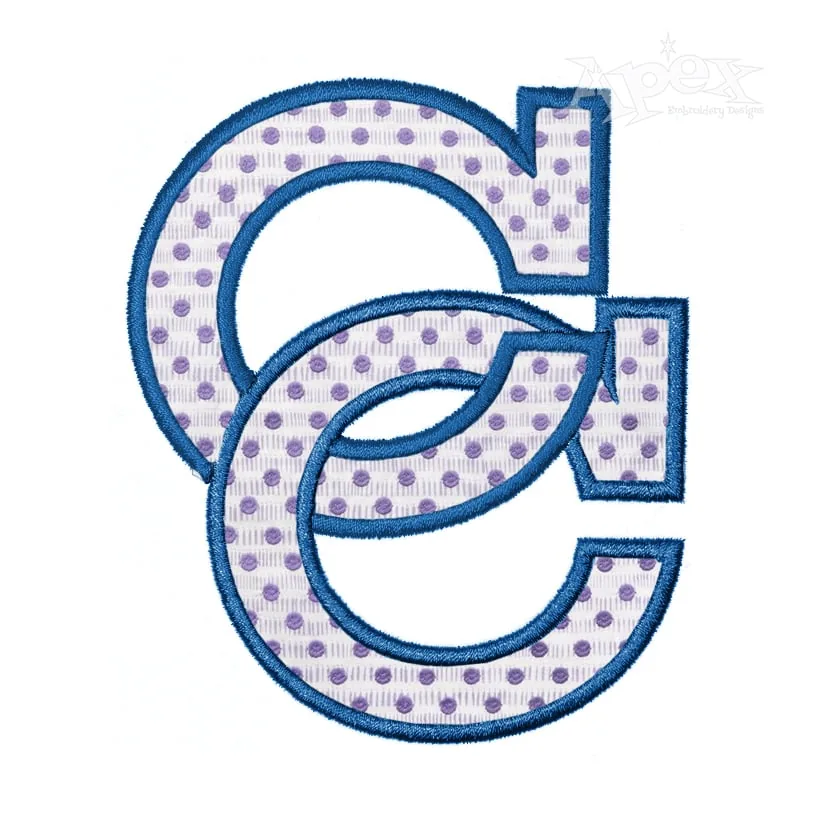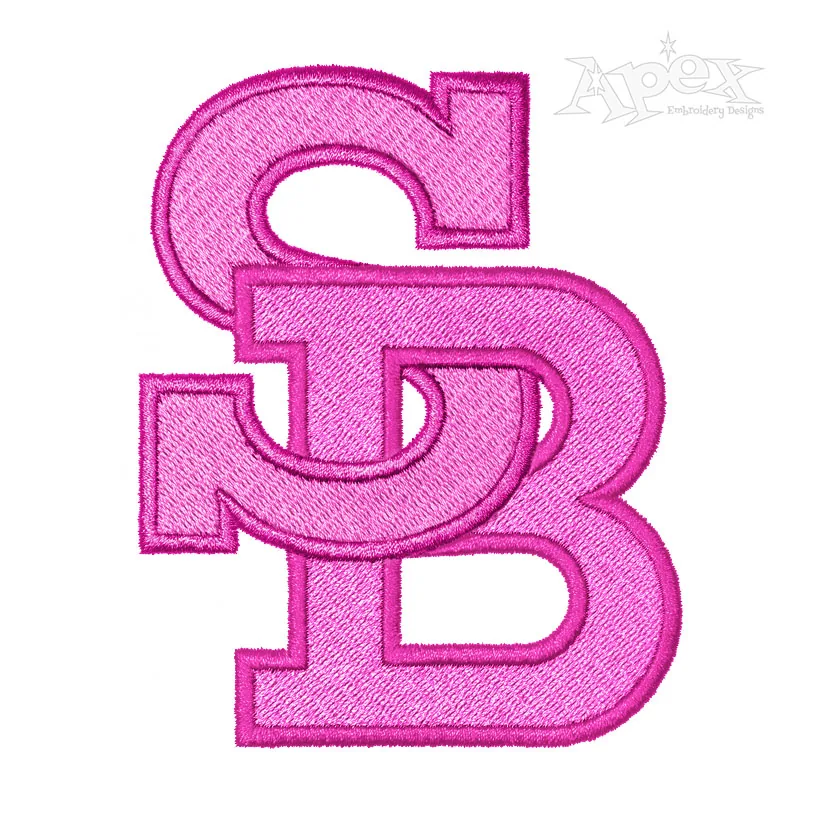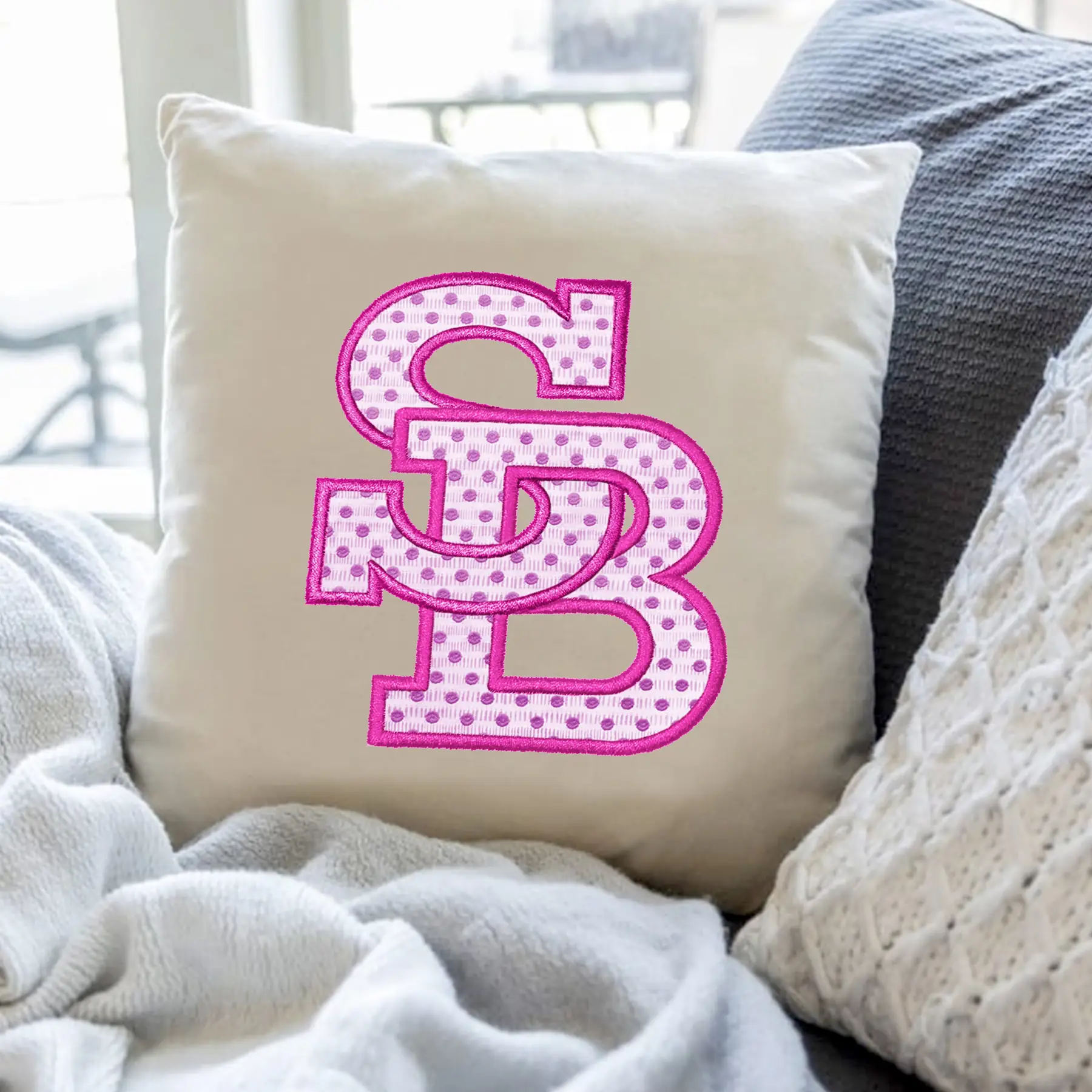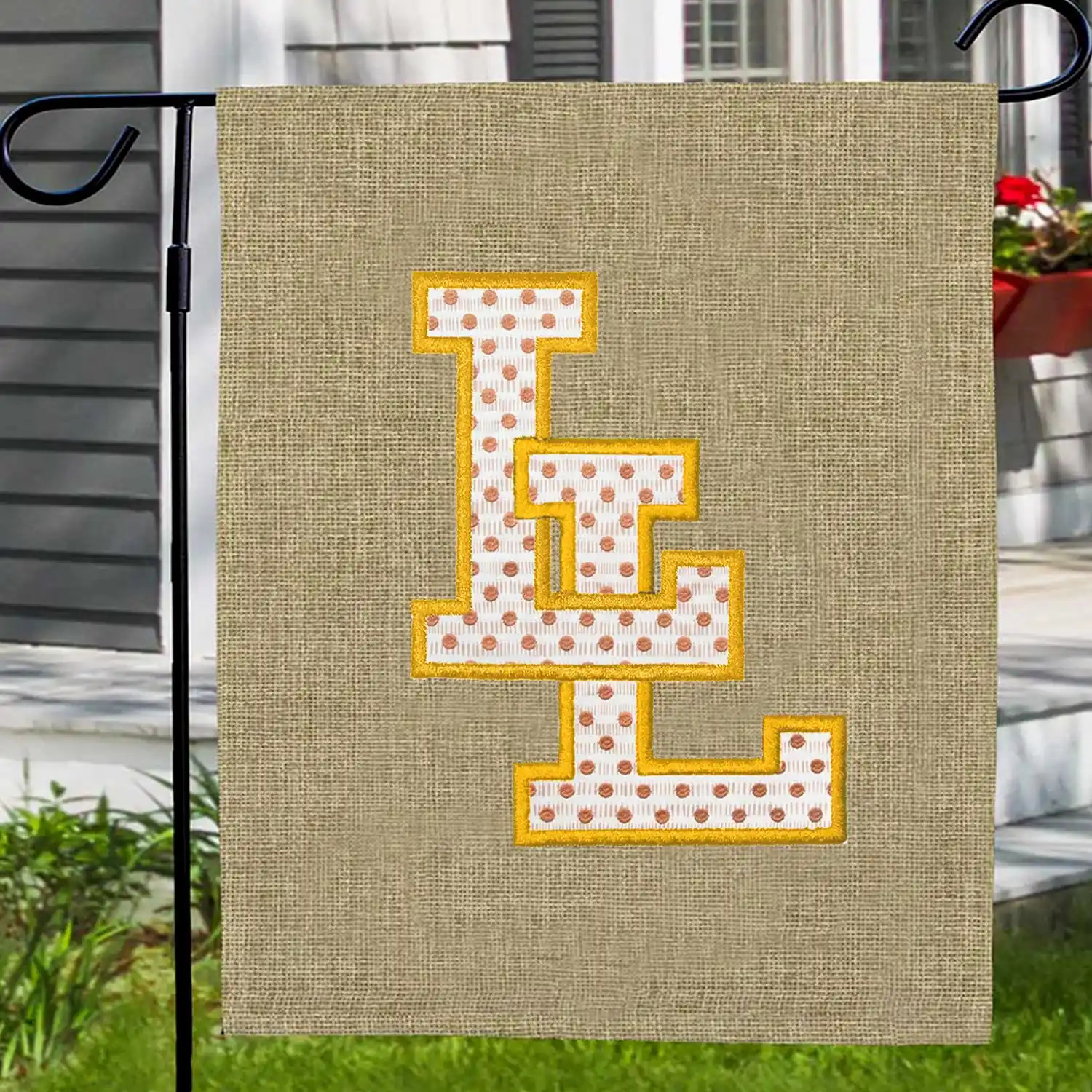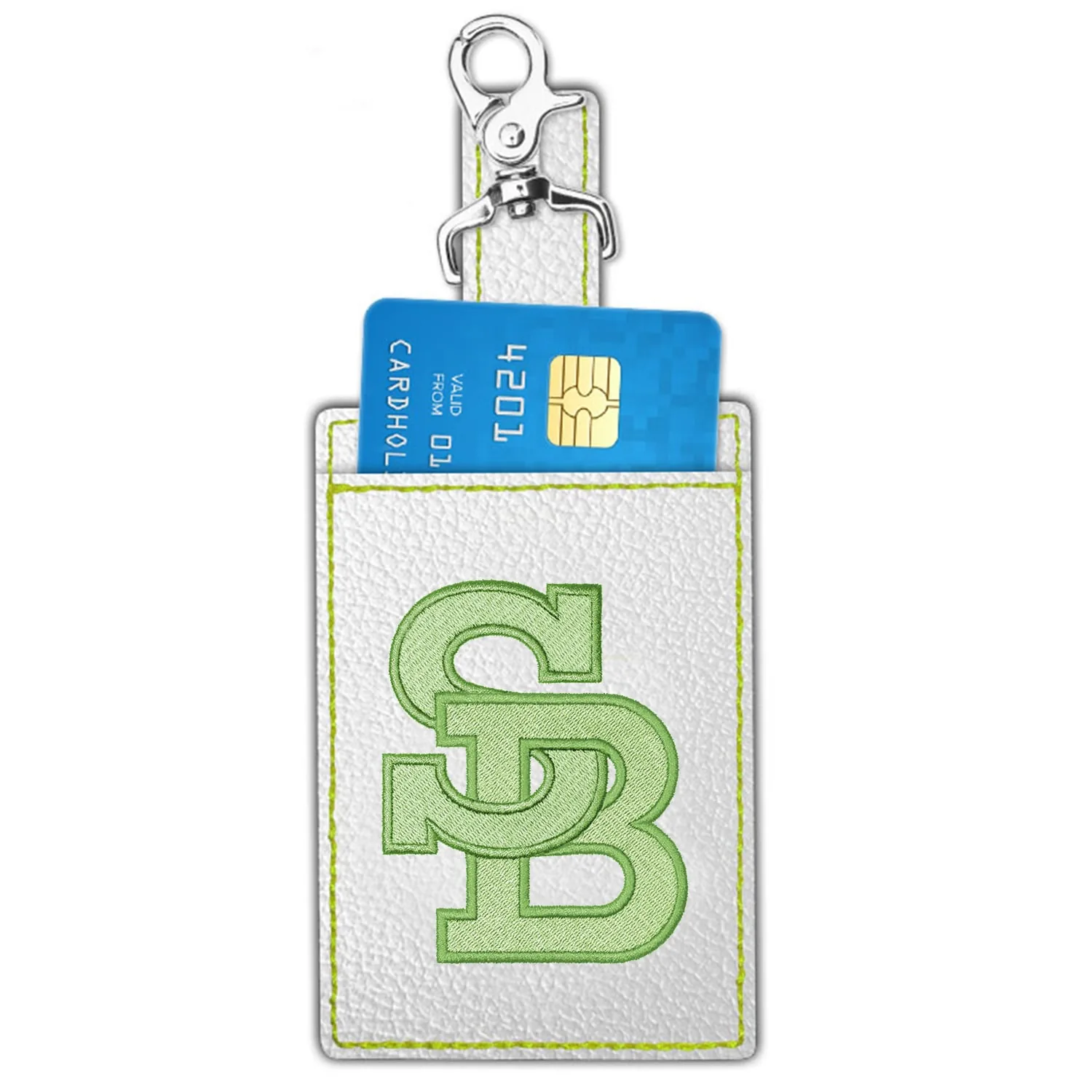
Varsity Interlocking Font
Collegiate tradition meets modern needlecraft. Design born from vintage sideline jackets, weathered campus banners, storied field rivalries. Every two-letter monogram locks together with structural balance, turning bold athletic block letterforms into cohesive woven crests. Digitized pathing ensures crisp outlines frame dense fill layers, capturing authentic spirit of varsity sports gear.
Varsity Interlocking Craft & Letterform Details
Interlocking heavy slab serifs requires geometric discipline. Manual letter combination often causes density collisions where strokes overlap. Digitizer hand-tuned all 676 two-letter pairings across 26 alphabets. Stroke intersections feature adjusted underlying density to prevent thread bunching, fabric puckering, needle breaks. Three distinct thread color stops define separation: base letter fill, top interlocking letter fill, framing exterior satin outline border. Result gives sharp optical depth on fabric without manual layout work.